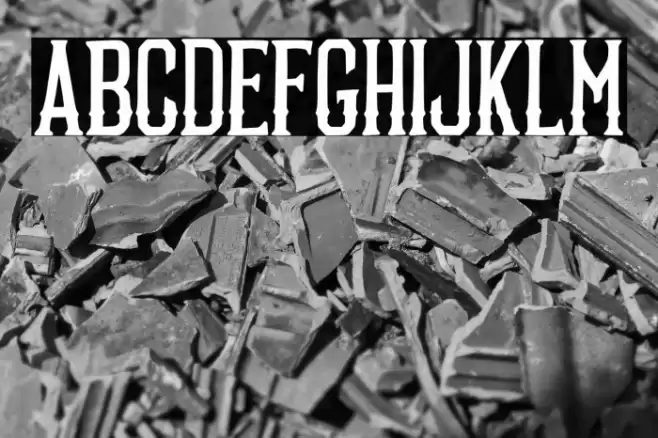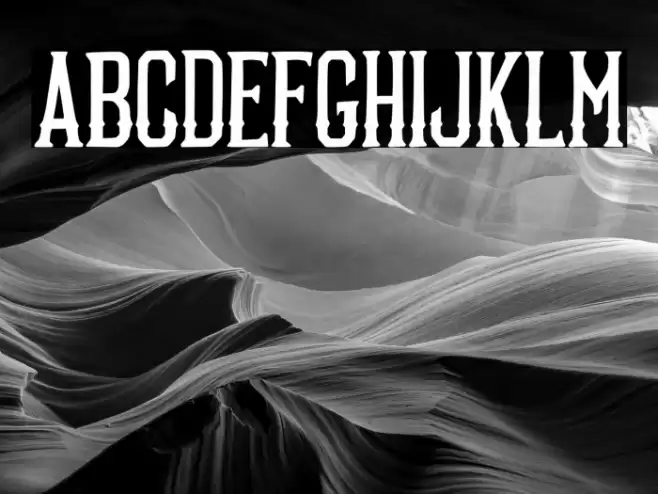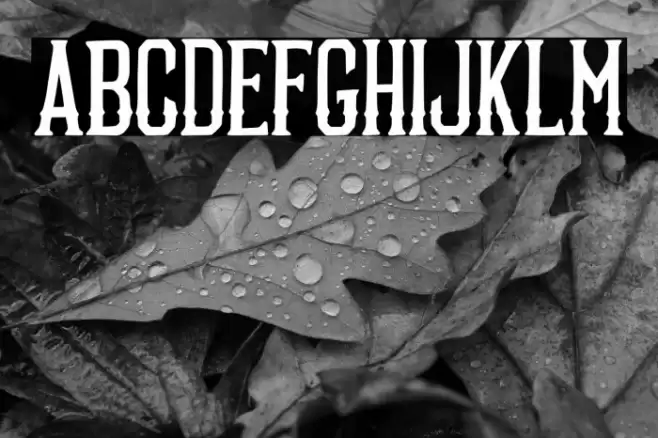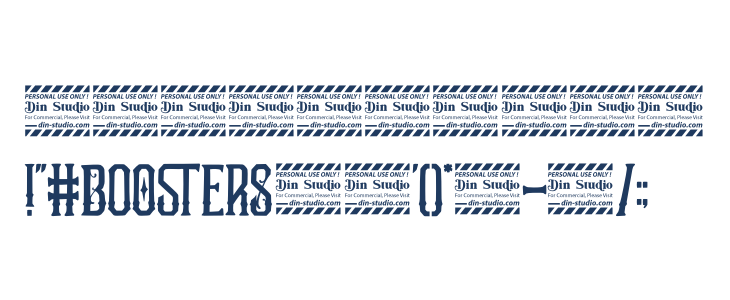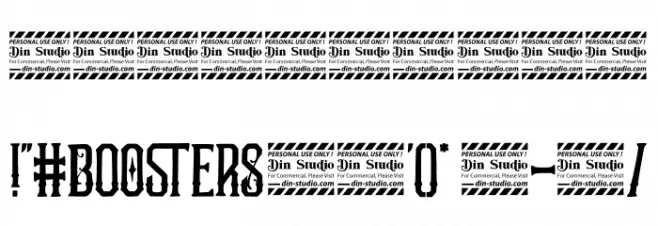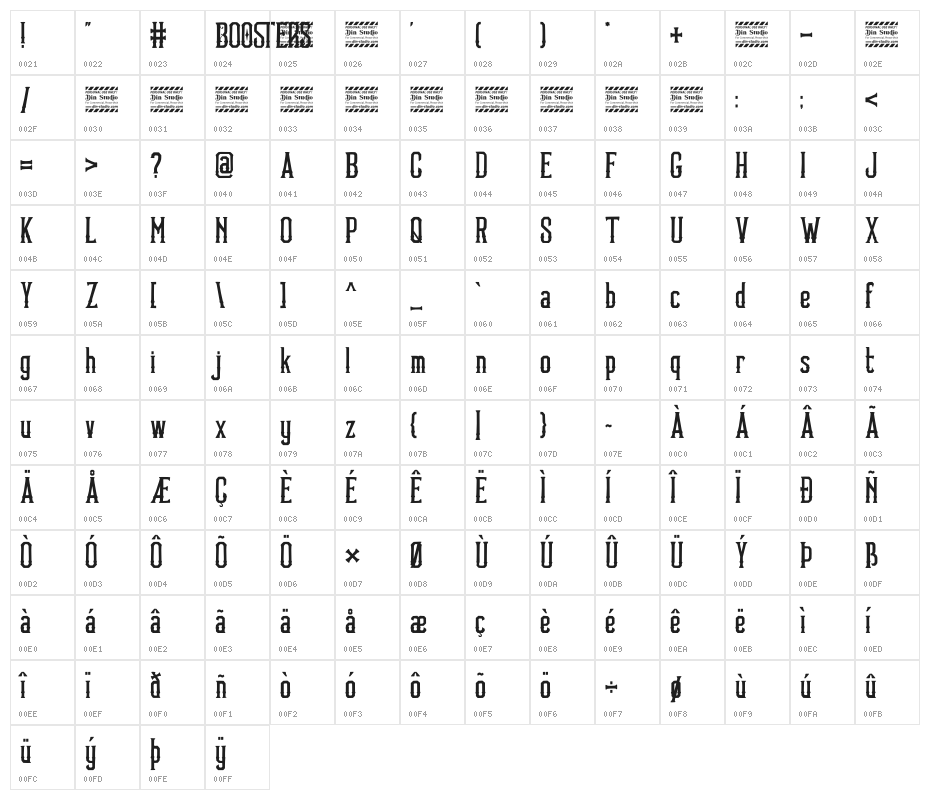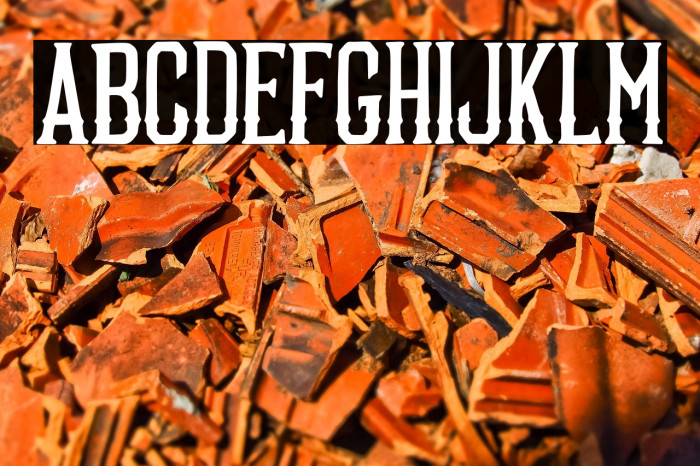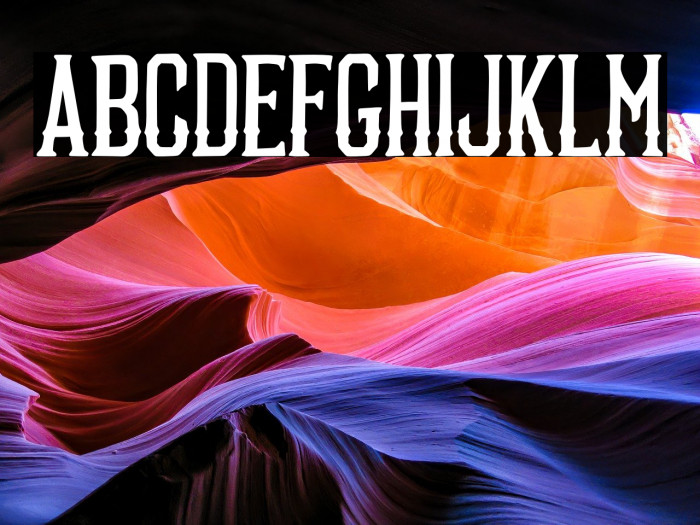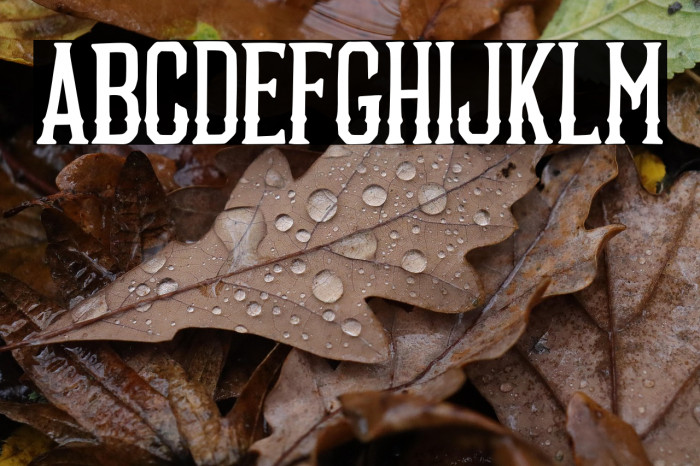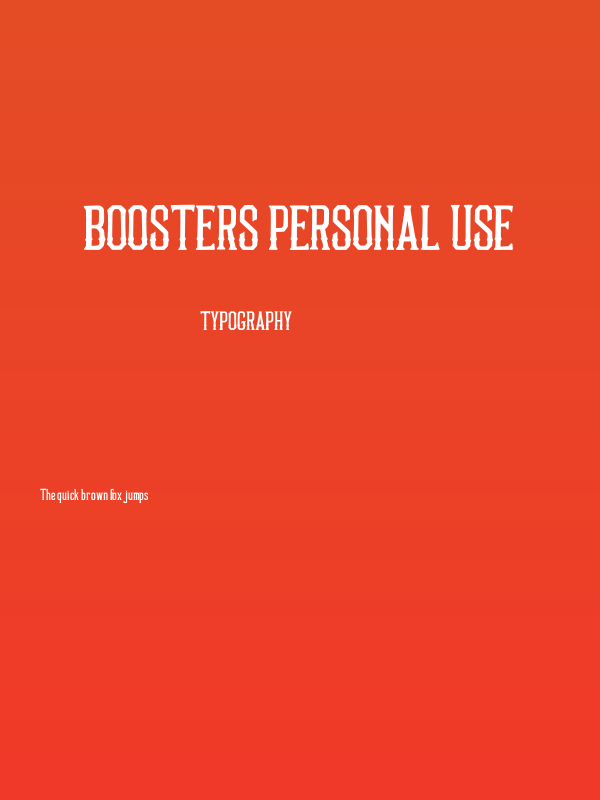
Boosters Personal Use Font
Boosters Personal Use Description
This font features a bold and decorative style with a strong presence. The characters are designed with sharp, angular edges and a slightly condensed form, giving it a unique and eye-catching appearance. The uppercase letters are particularly striking, with a tall and narrow structure that emphasizes verticality. The lowercase letters maintain a consistent style, complementing the uppercase with similar angular details. The numbers and special characters are crafted to match the overall aesthetic, ensuring a cohesive look across all text. This font is ideal for projects that require a bold statement or a vintage touch.
A bold, decorative font with sharp, angular edges and a vintage flair from Uncategorized fonts.
- Font: Boosters Personal Use
- Proposed Projects: Ideal for posters, logos, branding, and any design requiring a bold, vintage look.
- Overall Style: Vintage